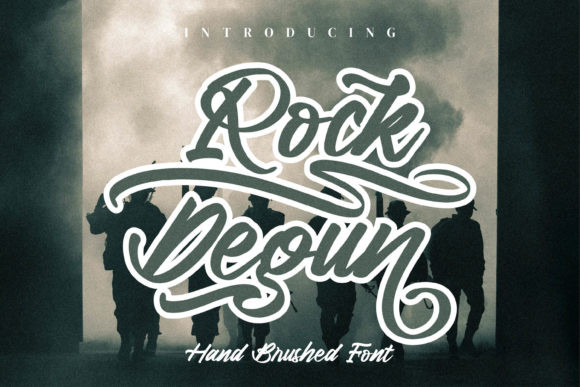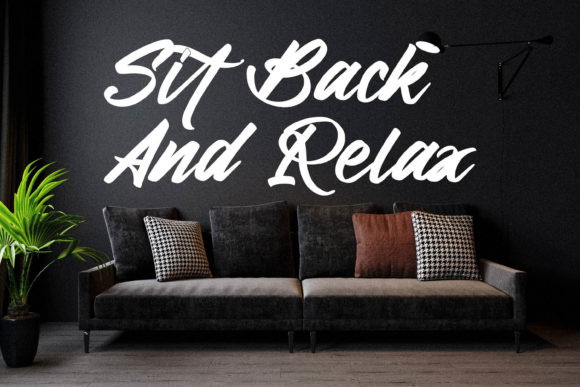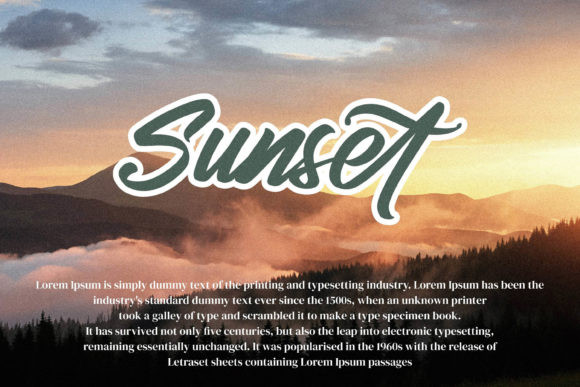
Rock Degun Font
Rock Degun is a cool, cursive and trendy looking handwritten font. It is PUA encoded which means you can access all of the glyphs and swashes with ease! Add it to each of your creations that require a fun, stylish touch, and you will love the final results.